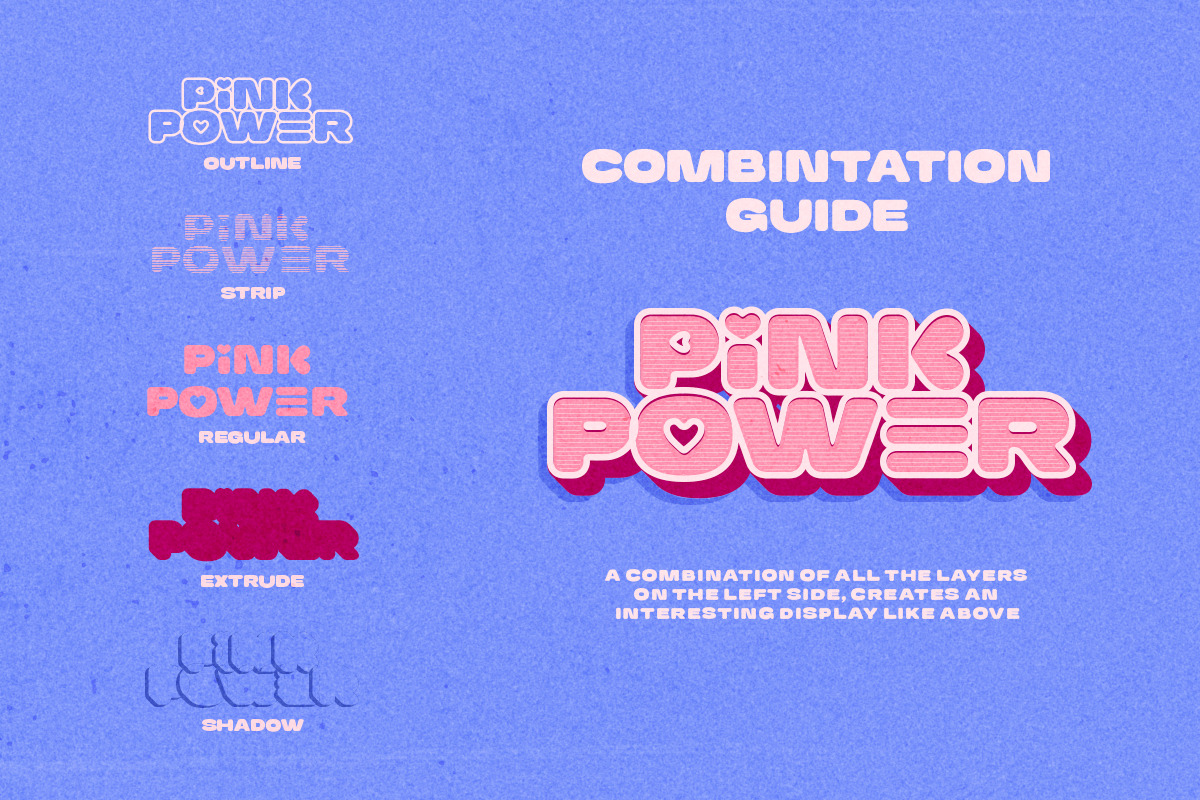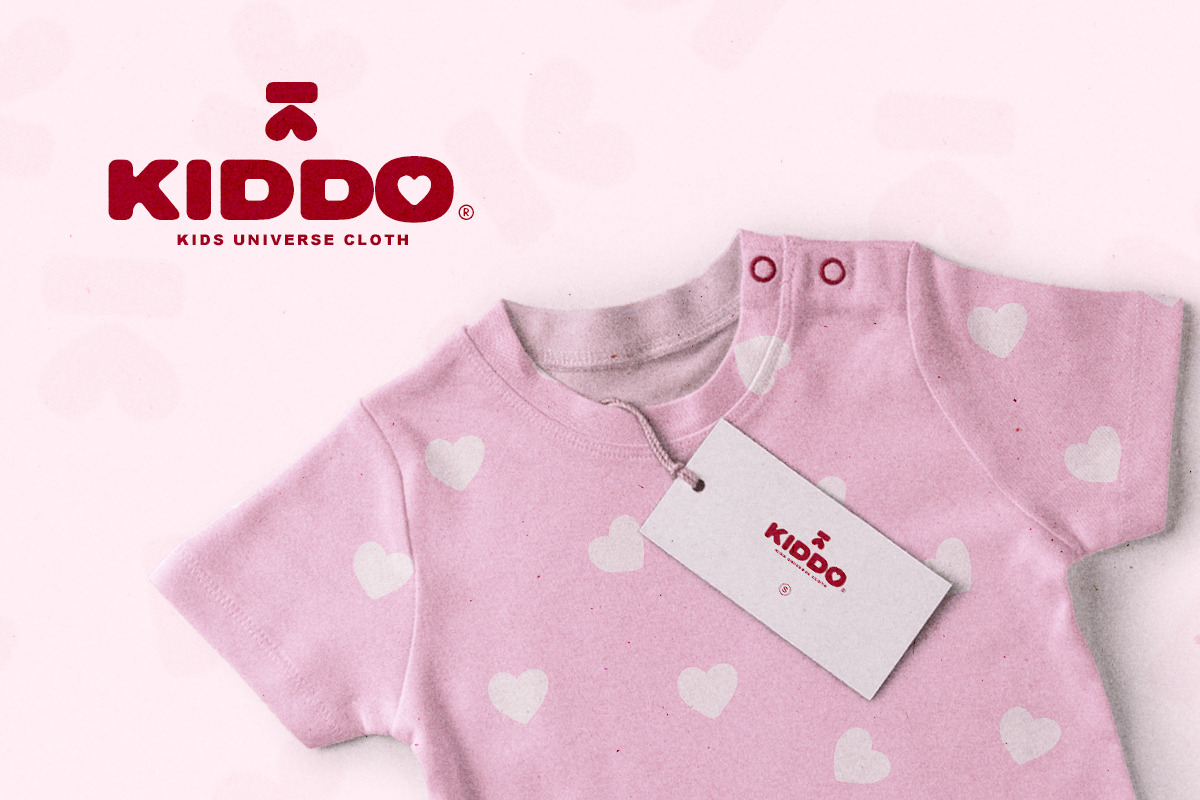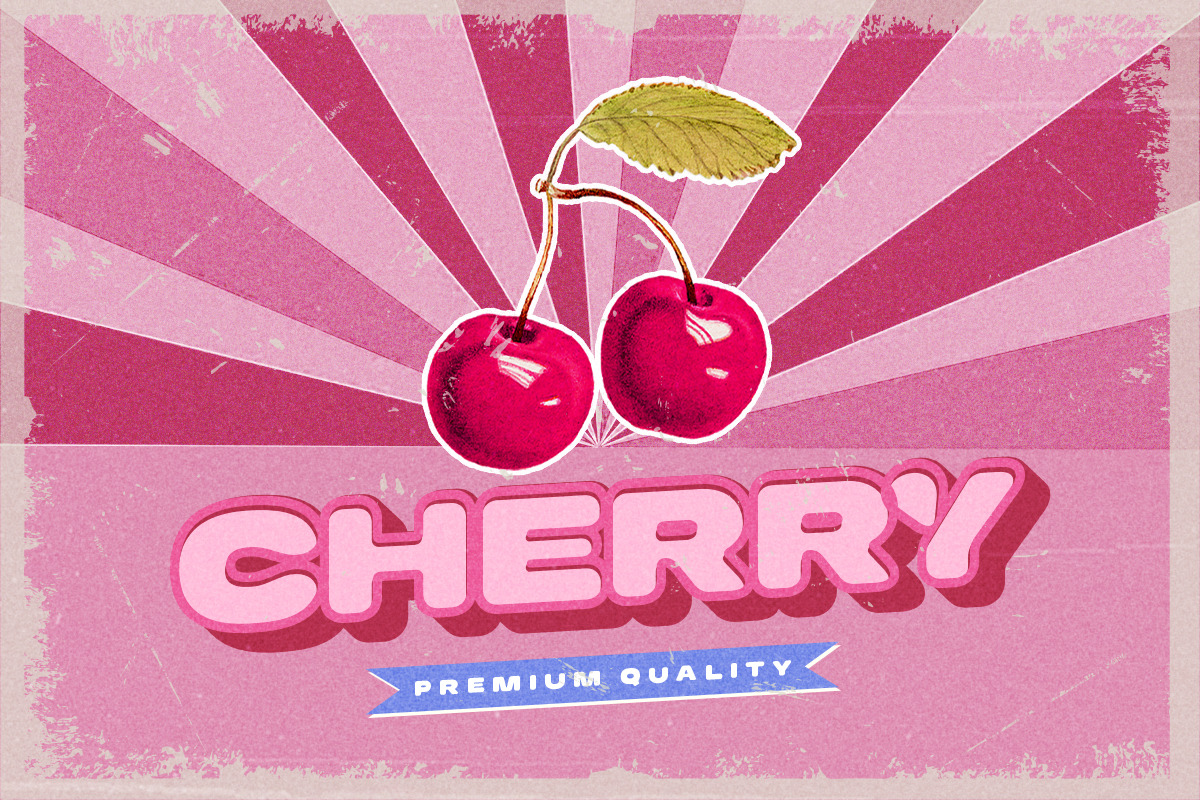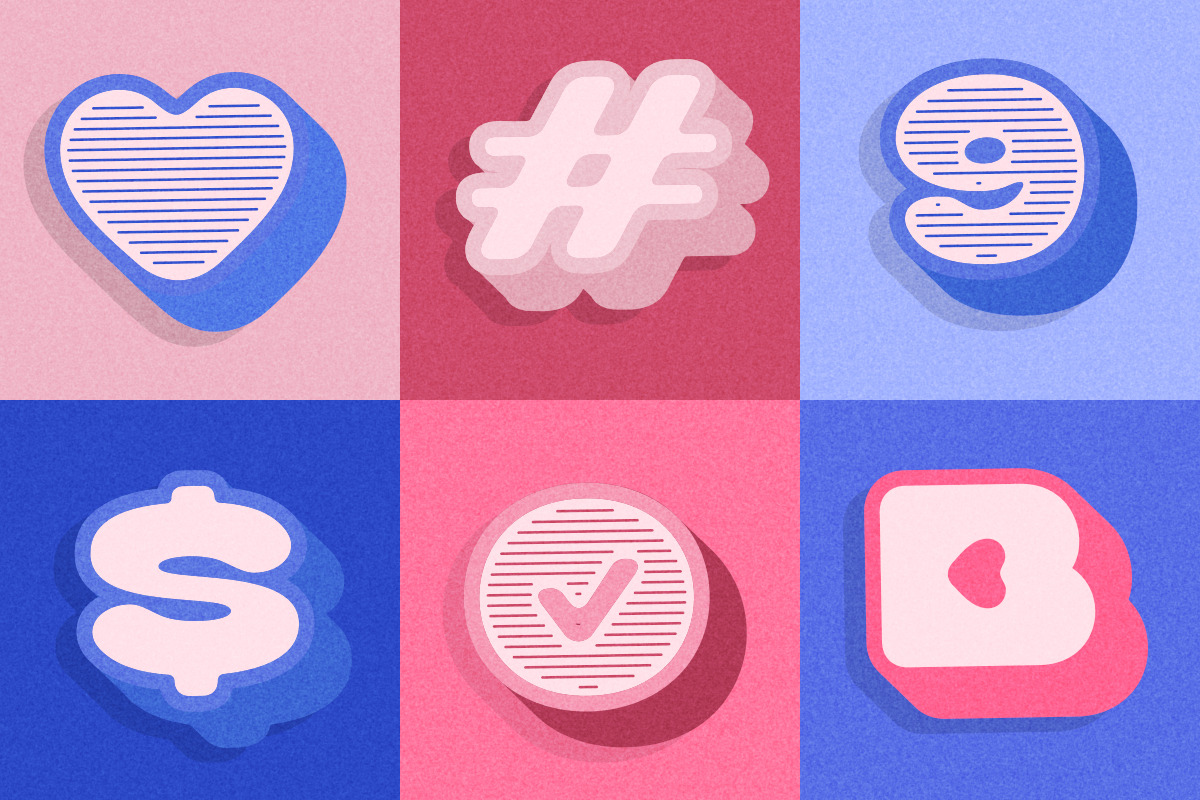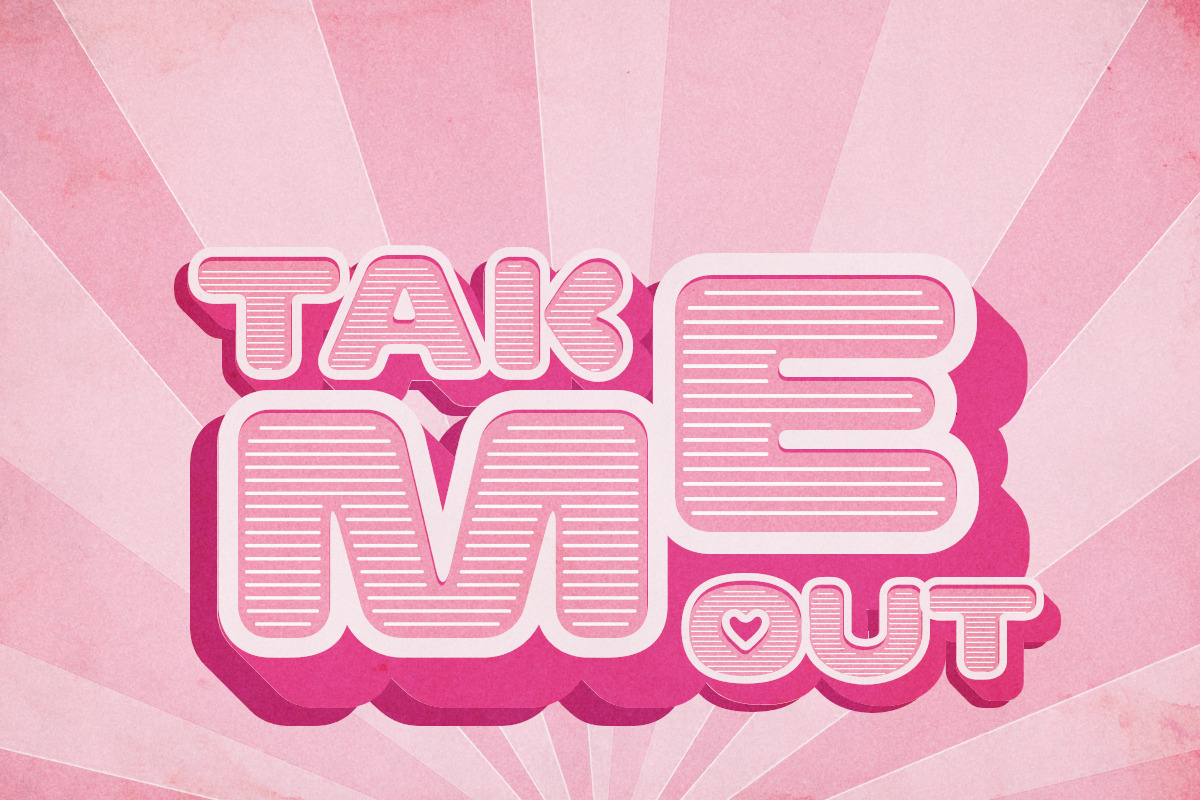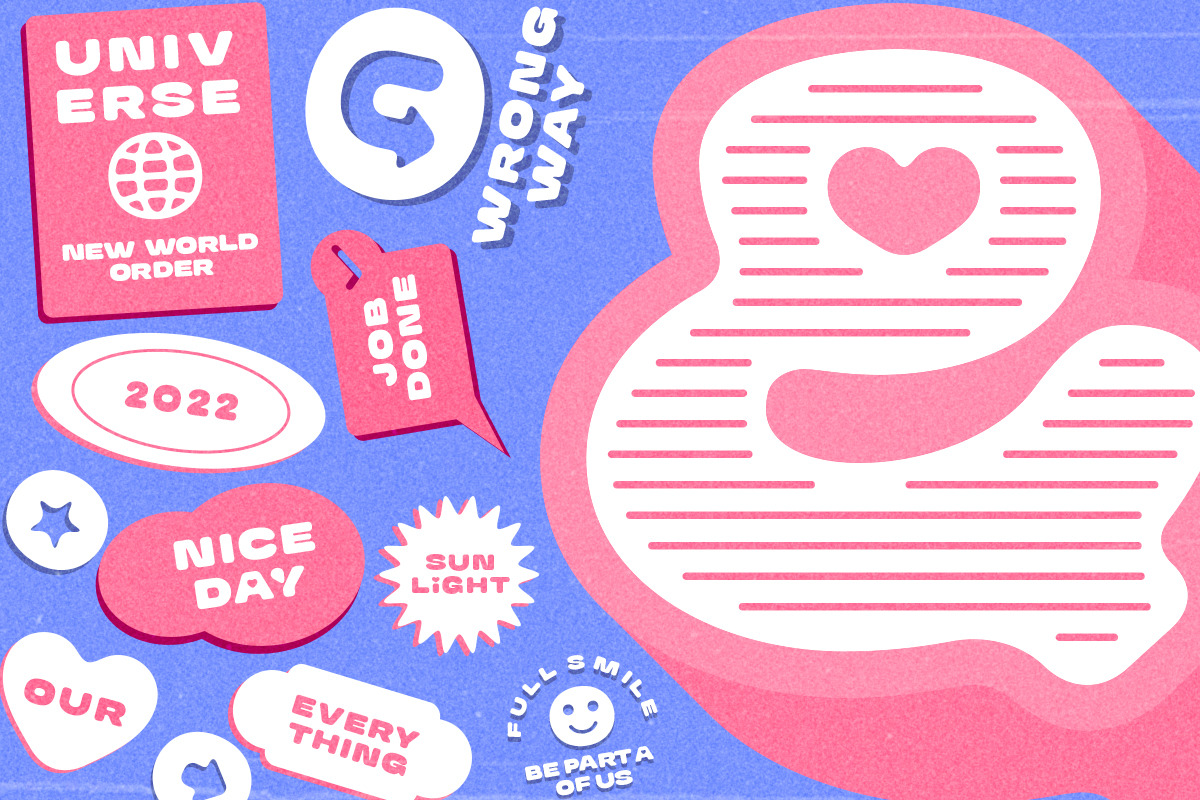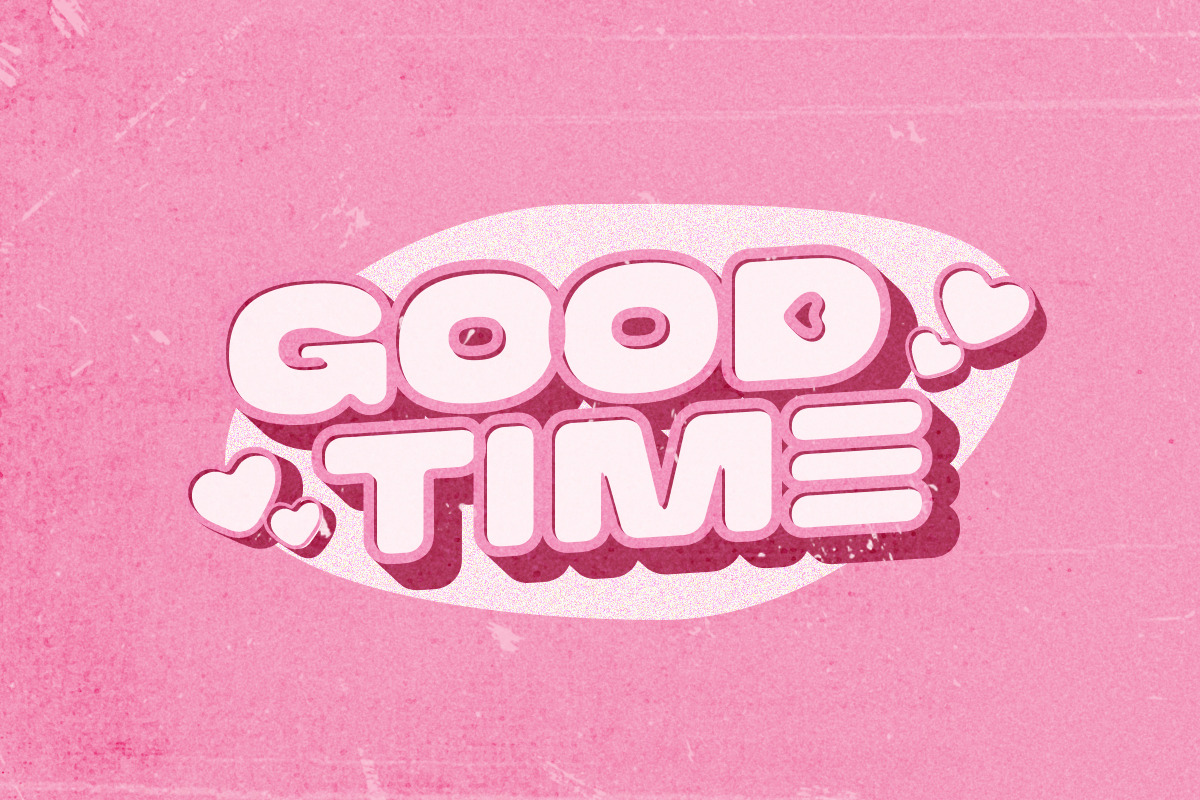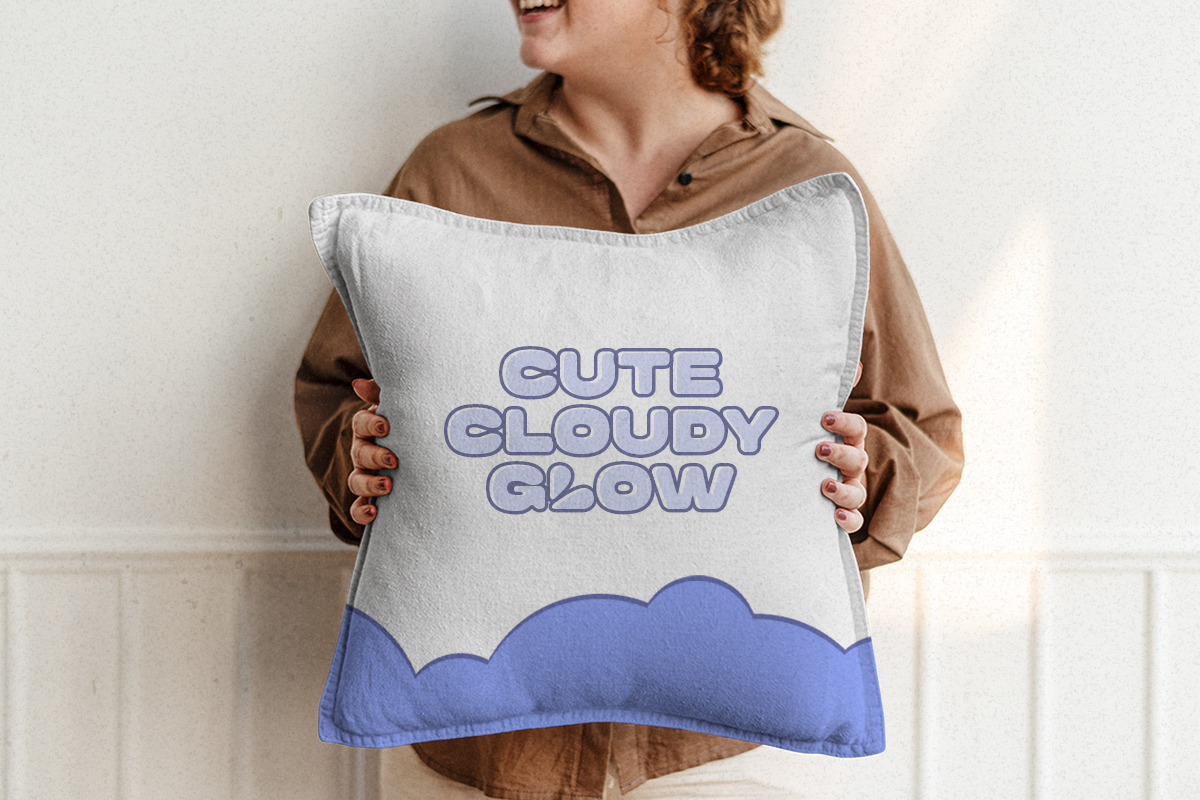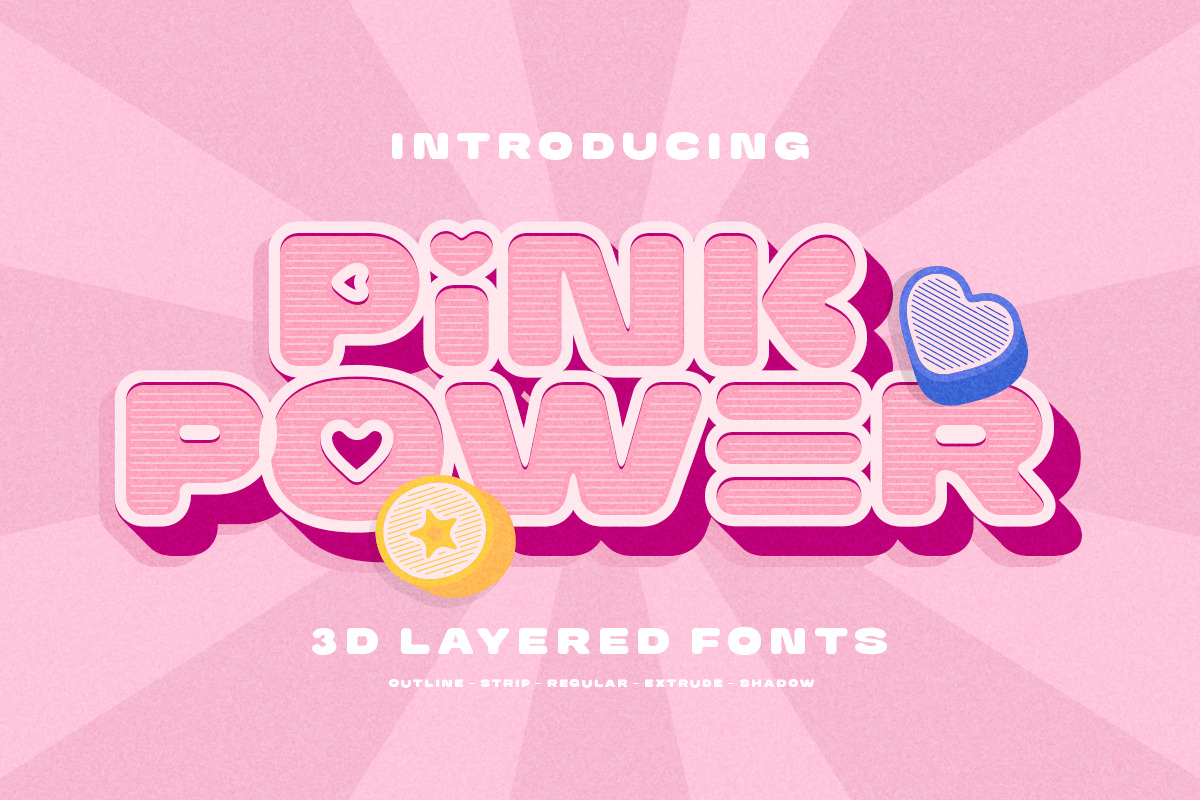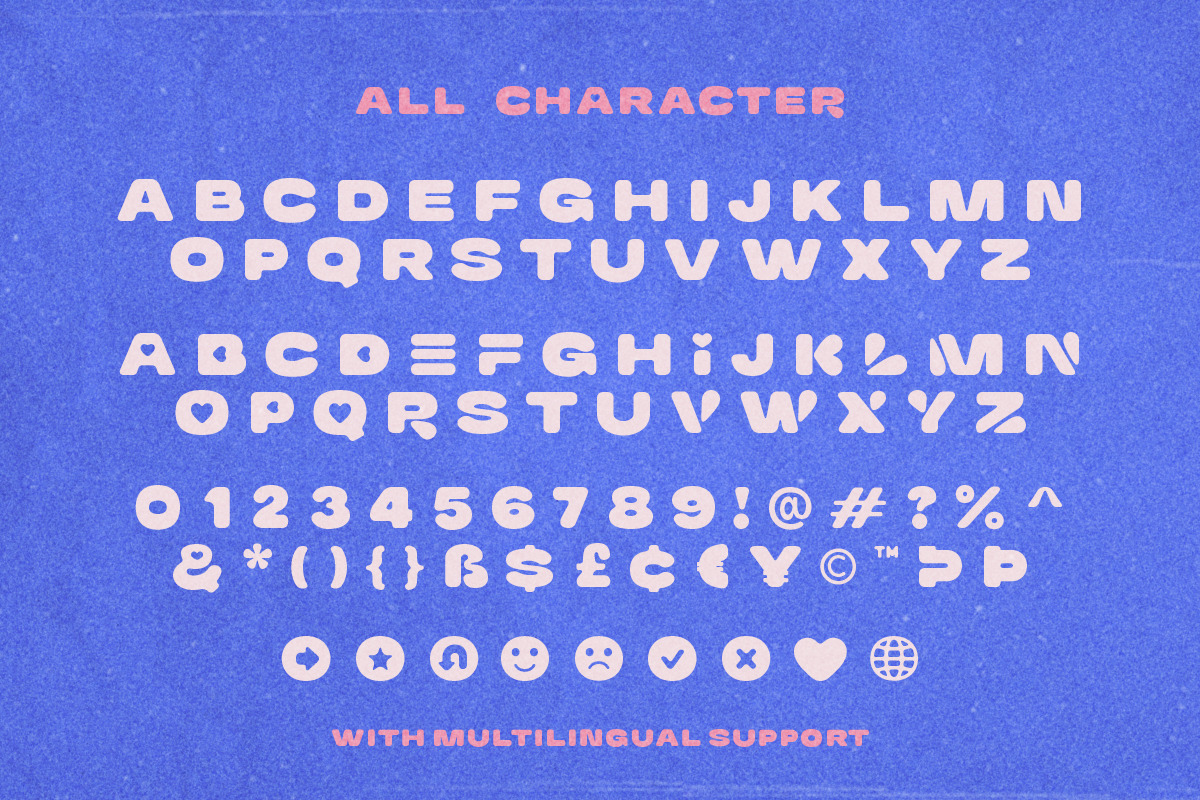
Pink Power - 3D Layered Font
Introducing, A NEW BOLD LAYERED FONTS called Pink Power!
Pink Power is a 3D retro font sans based that contains layered styles and icons! You can use this font for any purpose such as poster, branding, merchandise, and any retro style! With unique lowercase, you can combine the lowercase and uppercase in one word that will give you the best look! This stylish bold fonts also included outline, strip, regular, extrude and shadow style that will give you 3D look when you combine all of the styles! This fonts suitable to use for poster, branding, merchandise, and any retro style! The unique icons also included in the font, you can access it from ligature opentype feature, just type O and number (1-9) for example O8 to get the love icon. This font support multilingual.